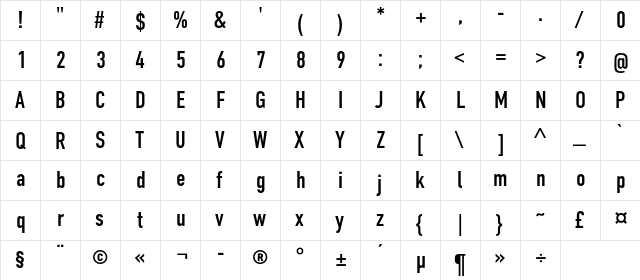
DINCondensedC Regular Font Preview
DINCondensedC Regular
Design Context for DINCondensedC Typeface
DINCondensedC takes a measured approach to typography — its balanced proportions and neutral character make it a reliable workhorse for both digital and print work. The condensed width makes it efficient for tight spaces without sacrificing legibility.